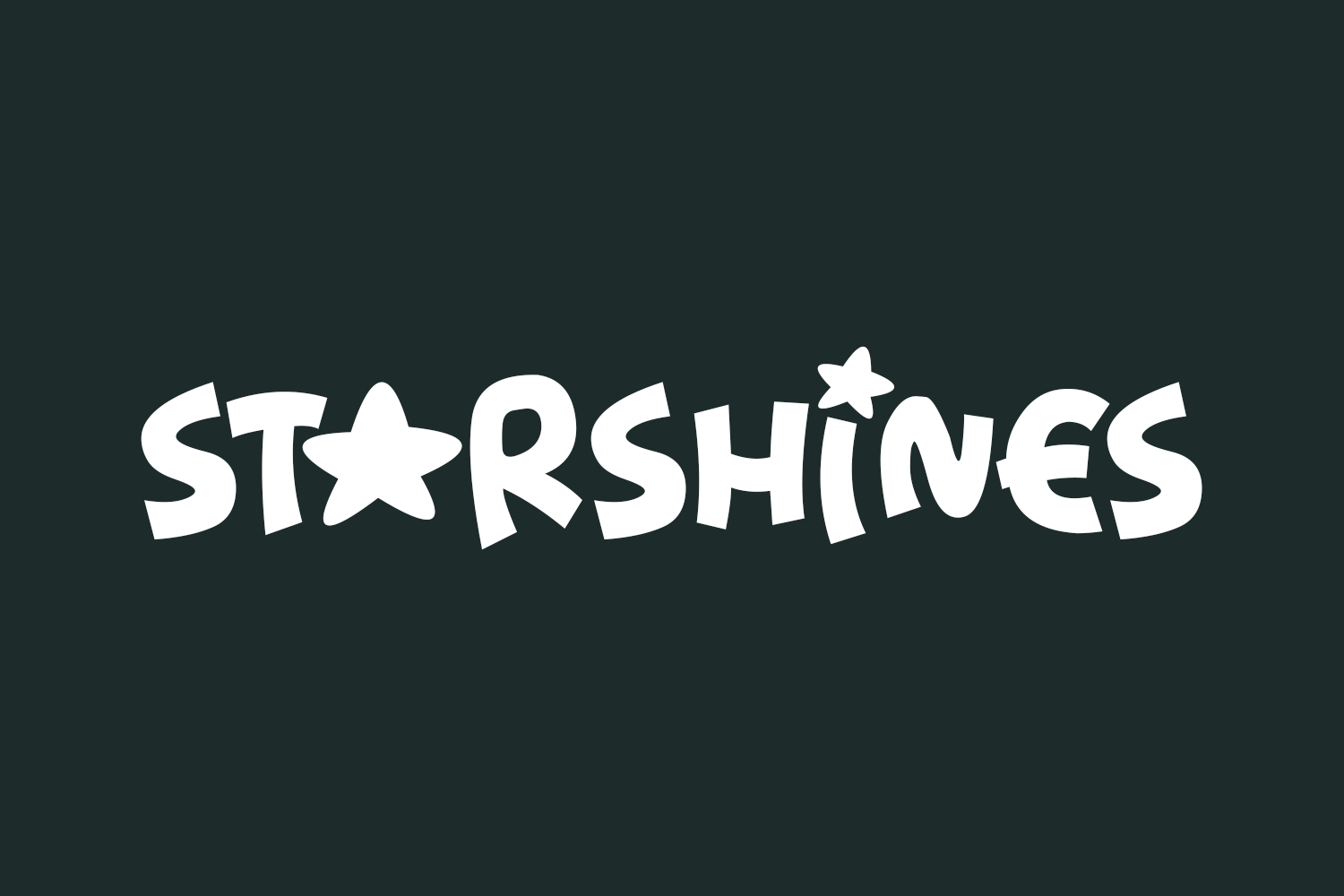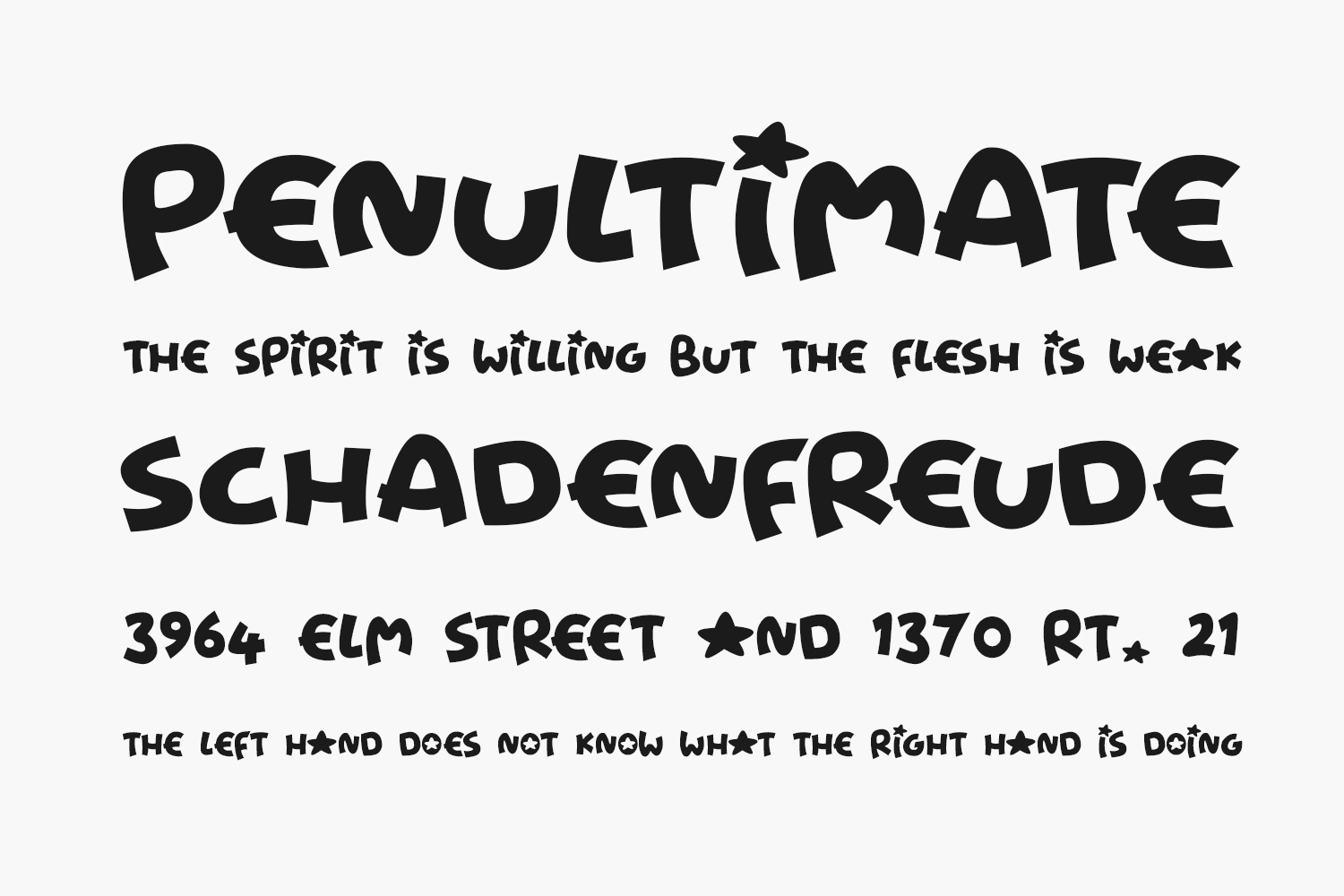
Starshines Free Font Family is perfect for friendly adventures, school settings and general fun filled use! Add some sparkly star power to your creations. Starshines Free Font Family is free for personal use only. Please purchase the full version for commercial use.